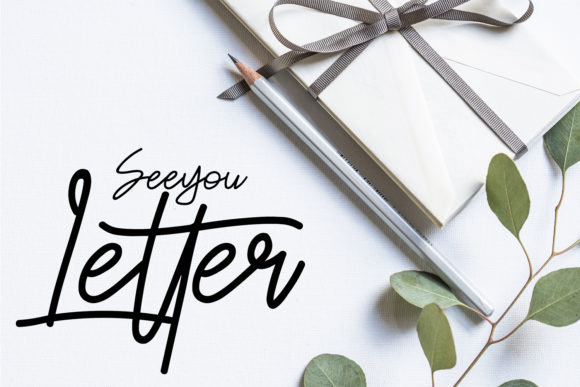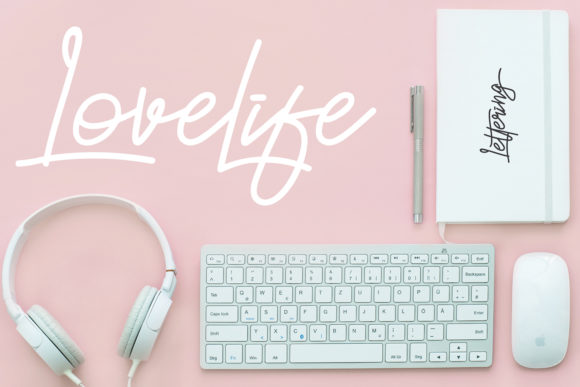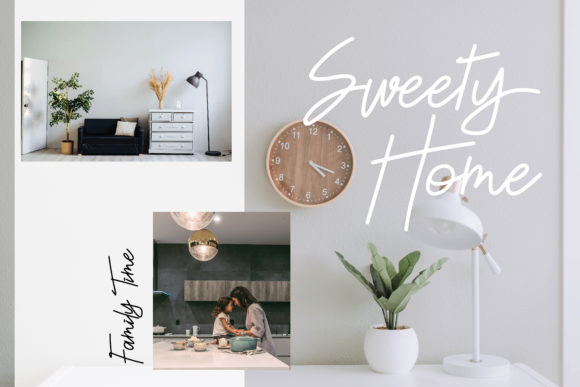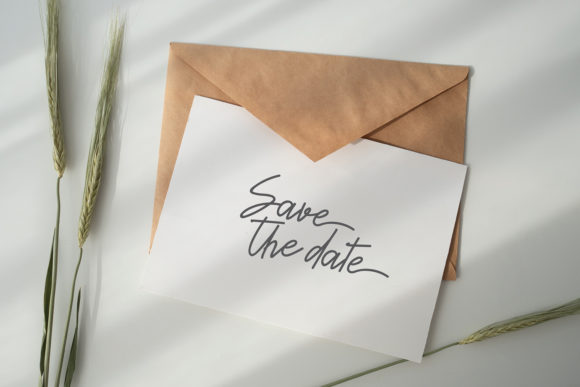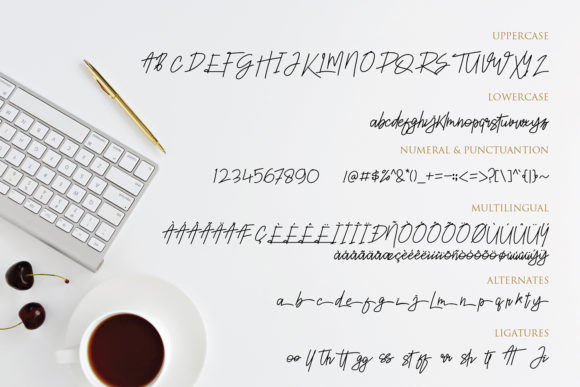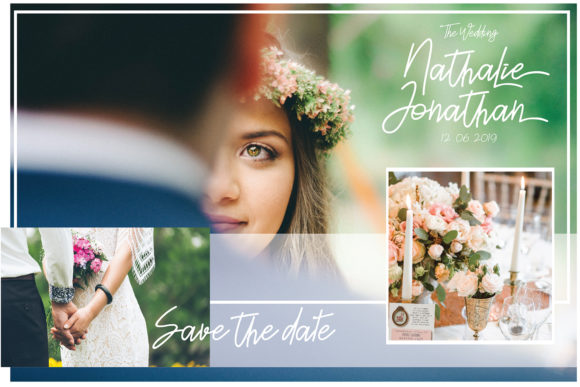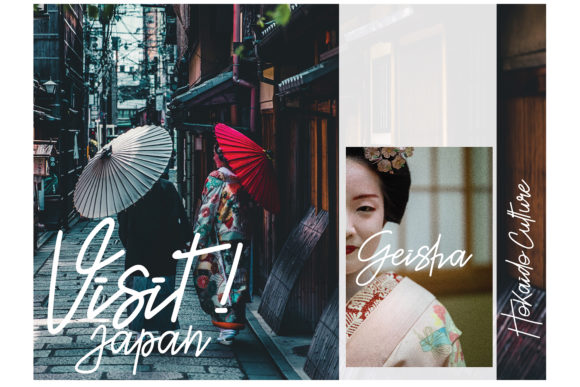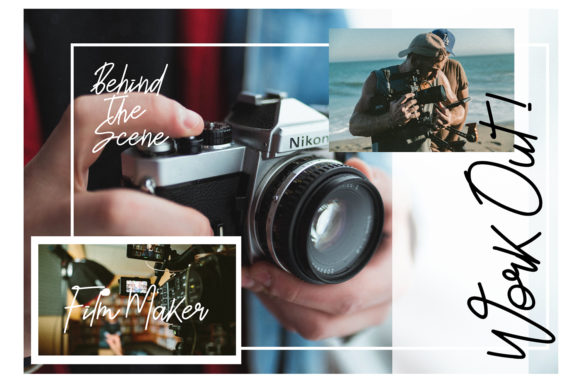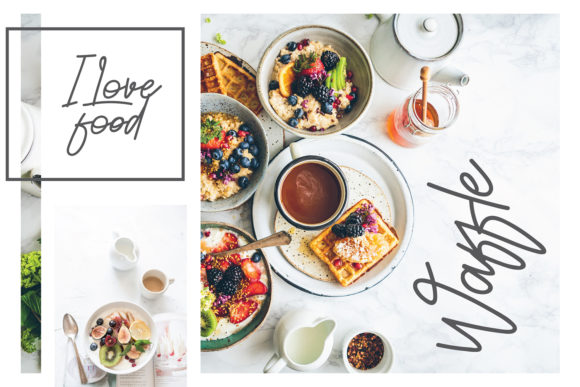
Lomesty Font
About Lomesty Font
Lomesty is a cute script font. It features an incredibly classic style, while still keeping a friendly feel. Lomesty is the perfect font for making original and outstanding designs.